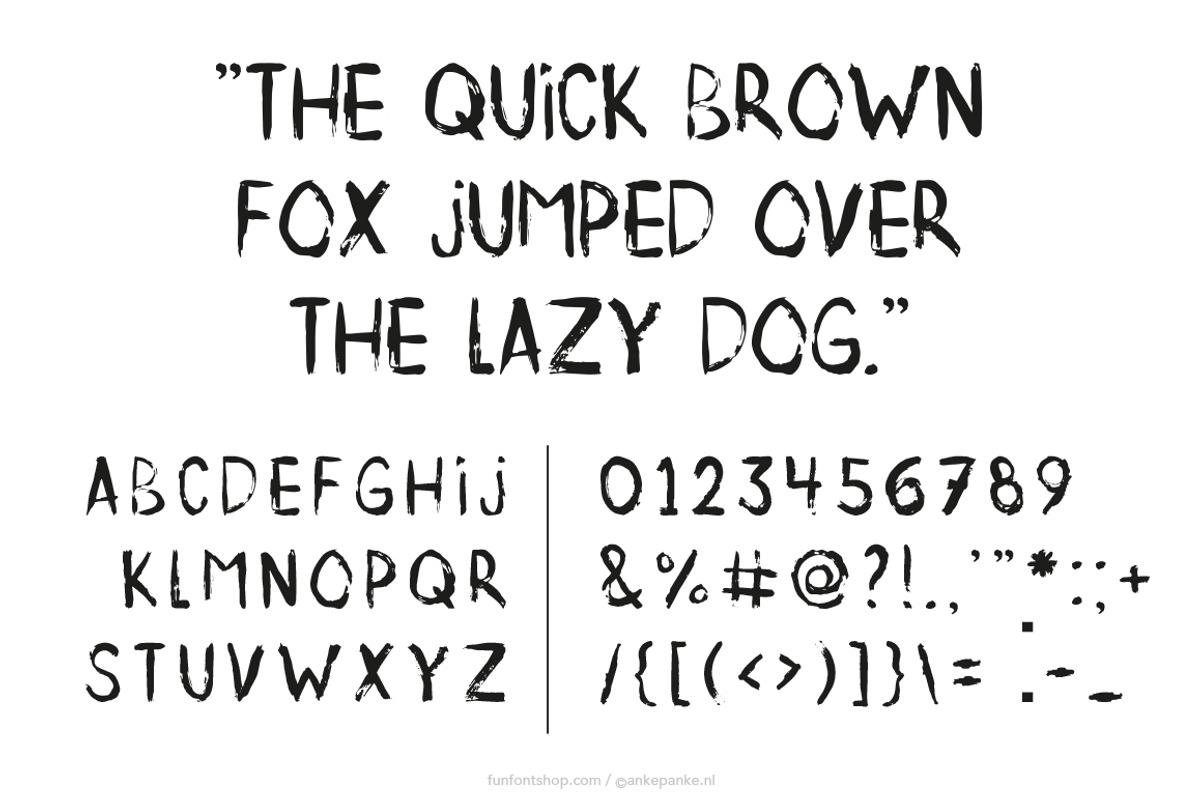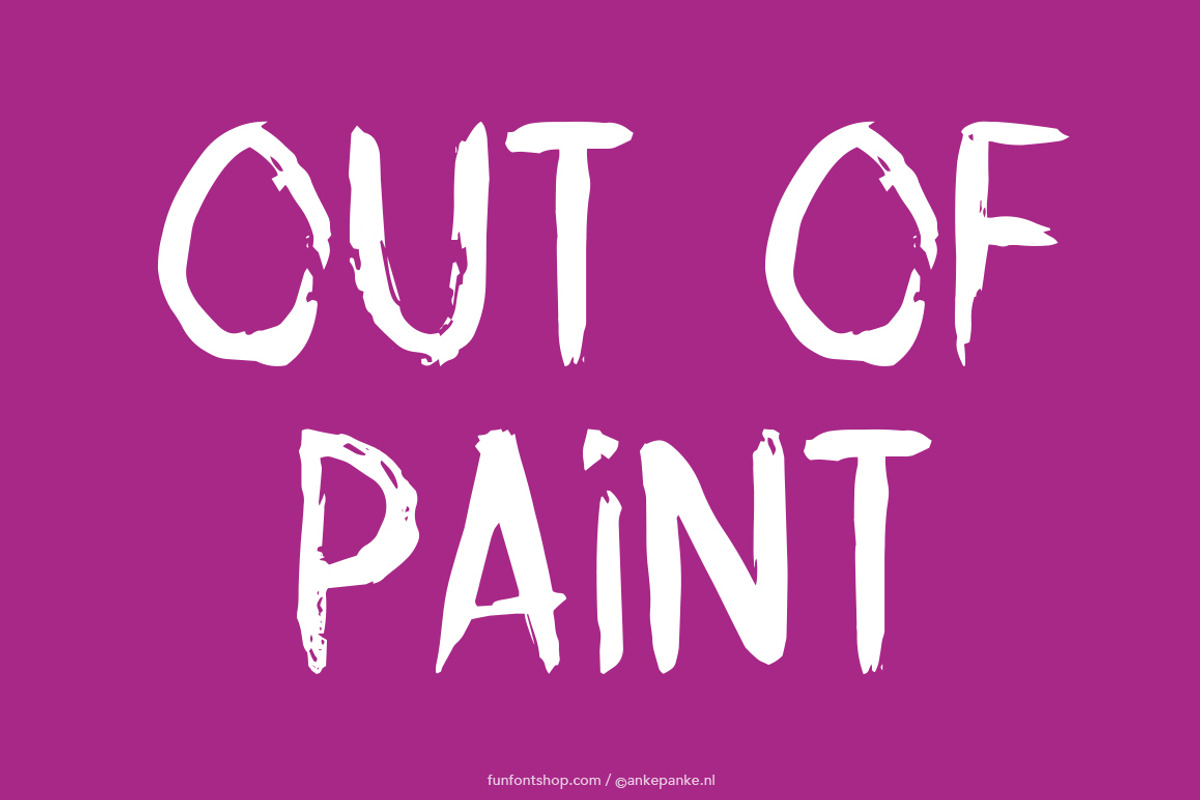
Out of paint font
This font was first painted by hand, scanned, vectorized and converted to a TTF file so you type with it. They have some imperfections, but I believe that adds to the handmade feeling.
- Letters Uppercase, lowercase and numbers
- Punctuation ?!(){}[]&@;:#%.,-+/